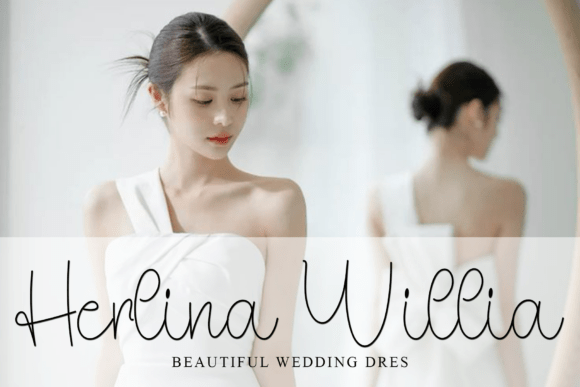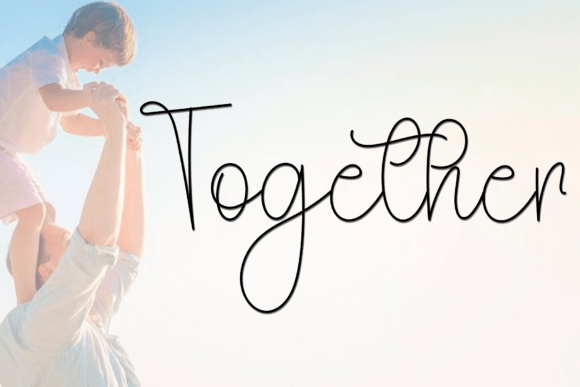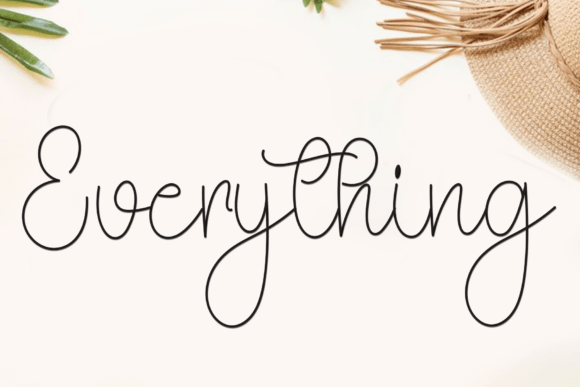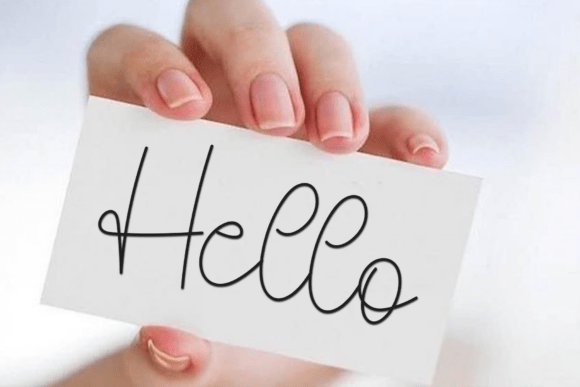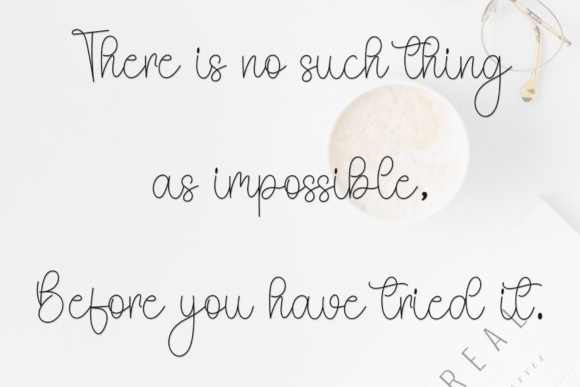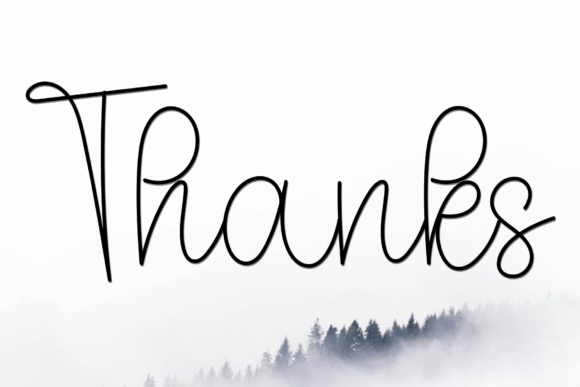
Discover the Elegance of Angela Calligraphy Font
Angela Calligraphy Font is a stunning modern script typeface that brings a touch of natural elegance to any design. With its light and delicate strokes, this font is perfect for designers and crafters looking to add a sense of sophistication and authenticity to their work. In this article, we’ll explore the features and benefits of Angela Calligraphy Font, and how it can elevate your designs to the next level.
The Inspiration Behind Angela Calligraphy
Angela Calligraphy was designed with the intent to preserve the natural rhythm of cursive handwriting. The font embodies the feel of a handwritten letter—carefully composed yet fluidly expressive. Inspired by minimal calligraphy and modern lettering trends, it reflects an understated elegance that feels both approachable and elevated. The designers aimed to create a font that captures the softness of ink-on-paper calligraphy while remaining clean and versatile for modern use.
Key Features of Angela Calligraphy Font
So, what makes Angela Calligraphy Font so special? Here are some of its key features:
- Refined monoline strokes: Angela Calligraphy features smooth, refined monoline strokes that give it a clean and modern look.
- Flowing curves: The font’s flowing curves and connections create a sense of fluidity and elegance.
- Soft and delicate: Angela Calligraphy is a light and delicate font, making it perfect for designs that require a touch of subtlety.
- Simple and balanced: The font relies on simplicity and balance, rather than ornate flourishes, to create a sense of understated elegance.
Uses for Angela Calligraphy Font
Angela Calligraphy Font is a versatile typeface that can be used in a variety of design applications, including:
- Stationery: Create beautiful wedding invitations, greeting cards, and letterheads with Angela Calligraphy.
- Branding: Use Angela Calligraphy to add a touch of elegance to your brand’s logo, packaging, and marketing materials.
- Social graphics: Create stunning social media graphics, quotes, and posters with Angela Calligraphy.
- Wedding materials: Use Angela Calligraphy to create beautiful wedding programs, menus, and place cards.
Why Choose Angela Calligraphy Font?
So, why should you choose Angela Calligraphy Font for your next design project? Here are just a few reasons:
- Elegant and sophisticated: Angela Calligraphy adds a touch of elegance and sophistication to any design.
- Versatile: The font is versatile and can be used in a variety of design applications.
- Readability: Angela Calligraphy is highly readable, even at small sizes, making it perfect for body text and captions.
- Emotional charm: The font has a unique emotional charm that will make your designs stand out.
Tips for Using Angela Calligraphy Font
Here are a few tips for getting the most out of Angela Calligraphy Font:
- Pair with bold fonts: Pair Angela Calligraphy with bold fonts to create a striking contrast.
- Use for headlines and titles: Use Angela Calligraphy for headlines and titles to add a touch of elegance.
- Experiment with colors: Experiment with different colors and textures to add depth and interest to your designs.
Angela Calligraphy Font is a stunning modern script typeface that brings a touch of natural elegance to any design. With its refined monoline strokes, flowing curves, and soft, delicate strokes, this font is perfect for designers and crafters looking to add a sense of sophistication and authenticity to their work. Whether you’re creating stationery, branding, social graphics, or wedding materials, Angela Calligraphy is sure to bring your message to life with grace and authenticity.